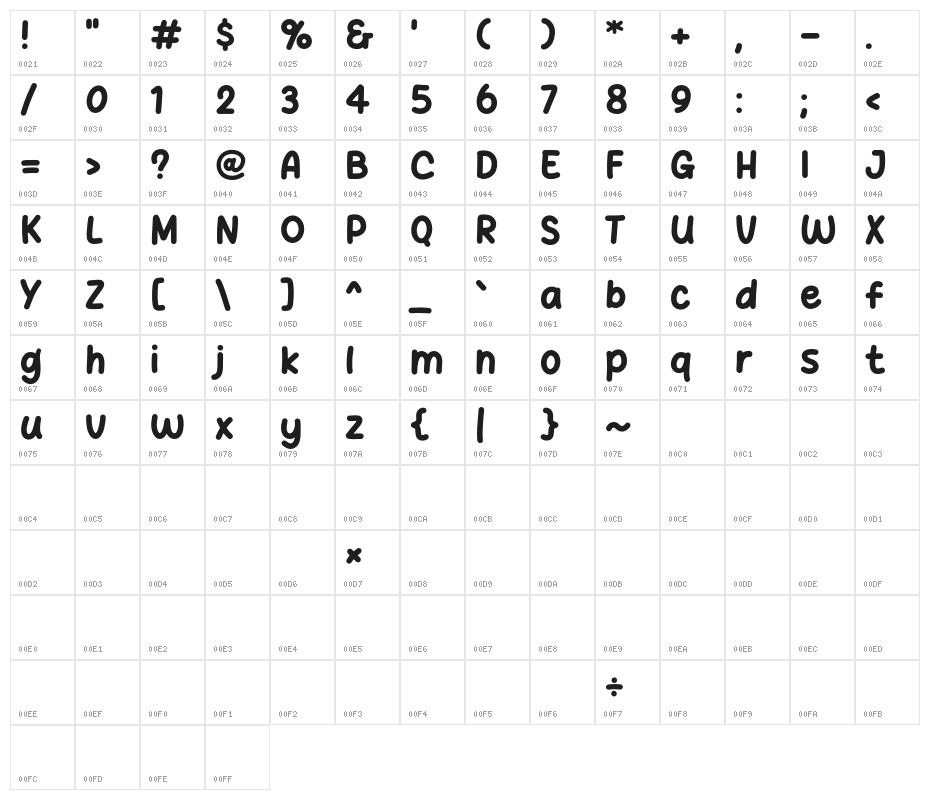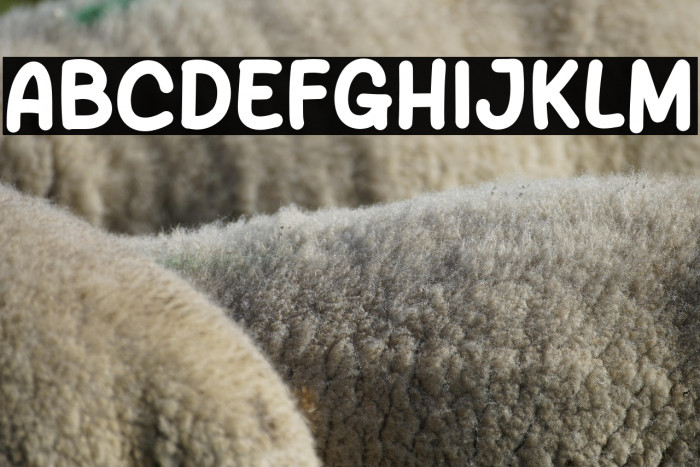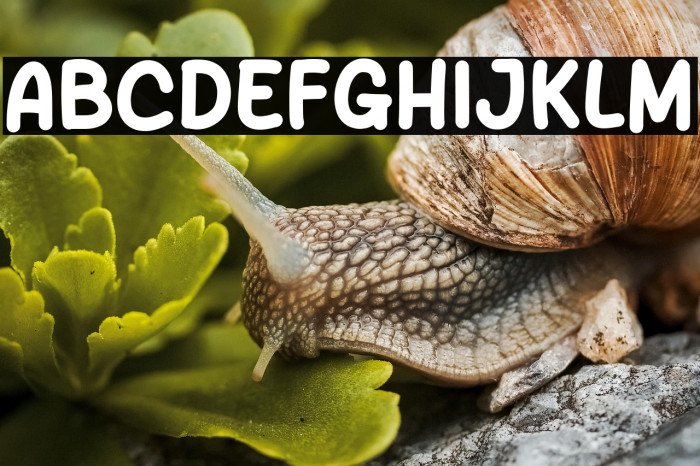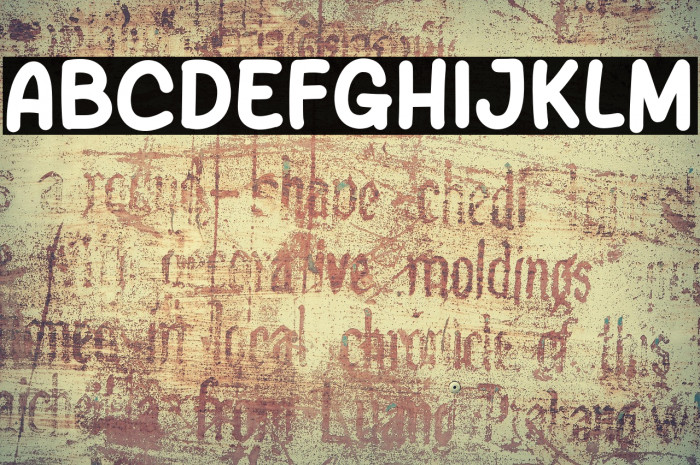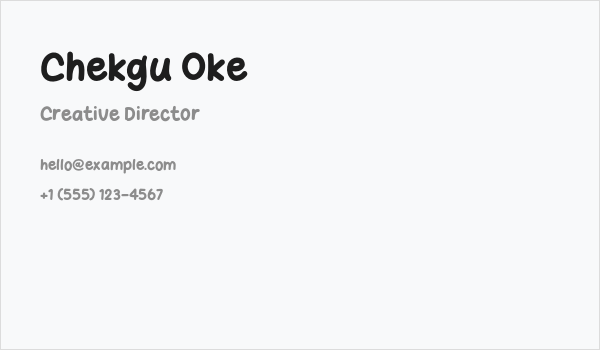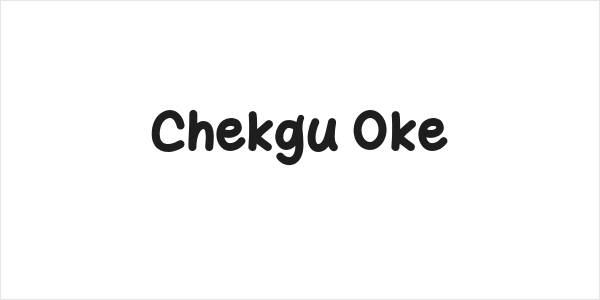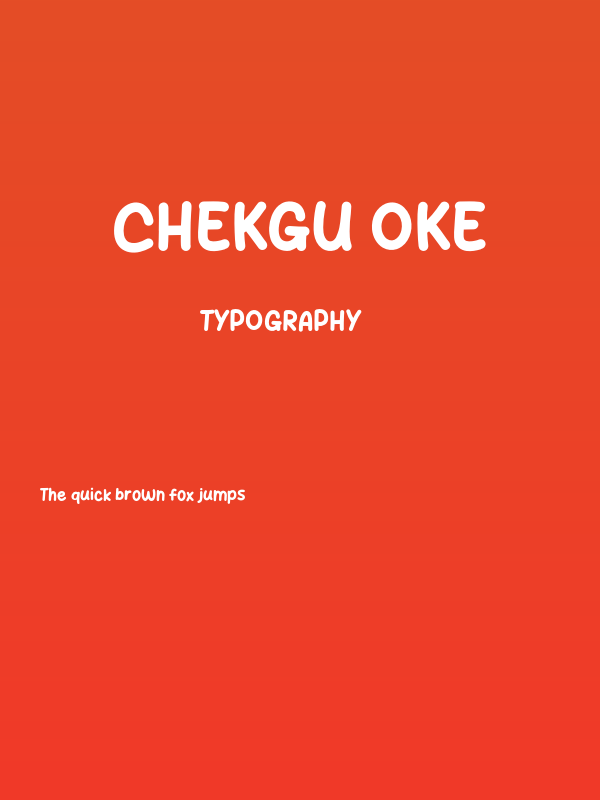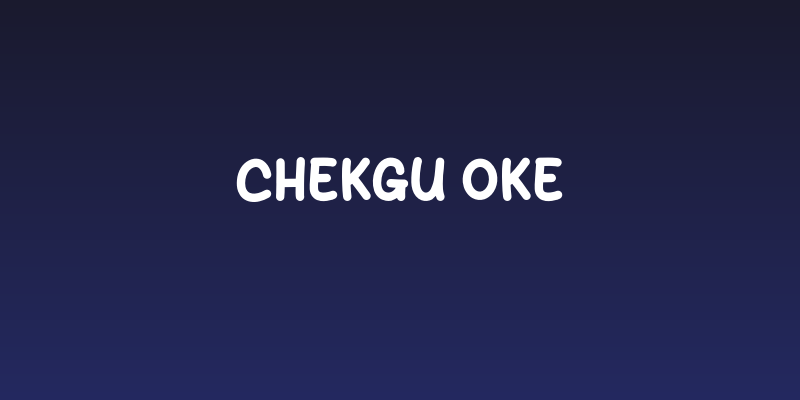
Chekgu Oke Font
Chekgu Oke Description
This playful and bold font features rounded, bubbly characters that convey a sense of fun and approachability. The letters are uniformly thick, with a consistent stroke width that gives the font a cohesive look. The rounded edges and smooth curves create a friendly and informal appearance, making it suitable for casual and creative projects. The numbers and special characters maintain the same playful style, ensuring a harmonious design across all elements. The font's simplicity and readability make it versatile for various applications, while its unique style adds a touch of personality to any text.
| Proposed Projects | Ideal for children's books, playful branding, casual invitations, and creative posters. |